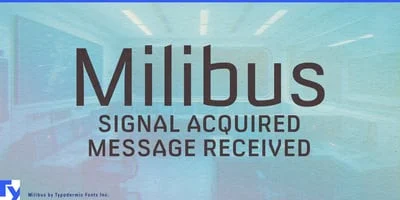
Milibus Font
Milibus Font is perfect for transportation branding, urban planning presentations, public transit systems, logistics companies, travel agencies, navigation interfaces, mobility services, infrastructure projects, and modern transportation communications. This dynamic typeface brings efficient movement and urban sophistication to projects requiring clear wayfinding typography and contemporary transit aesthetics.
What makes Milibus Font exciting is its kinetic energy that captures the constant motion of modern urban transportation and celebrates the efficiency of well-designed mobility systems with remarkable clarity and directional purpose. The font features streamlined letterforms with forward momentum and clear geometric structure that reflects the precision of transportation engineering and urban planning excellence. Its progressive character and efficient personality make it irresistible for transportation authorities seeking typography that communicates reliability while guiding travelers through complex urban environments with confidence and clarity.
The Milibus Font family includes transit weights and mobility styles: Light, Regular, Medium, Semibold, Bold, and condensed variations with directional alternates and wayfinding symbols. Each weight maintains the font's efficient character while offering designers complete flexibility for transportation branding and urban design applications requiring clear navigation and systematic visual communication.
Whether you're designing for transit authorities or mobility services, Milibus Font provides designers with a movement-focused, transportation-optimized typeface solution. The font's kinetic aesthetics and urban styling make it ideal for public transportation systems, logistics companies, urban planning firms, and mobility startups. Its reliable presence ensures your message communicates efficiency and direction while maintaining outstanding wayfinding readability. The comprehensive character set includes transportation symbols and directional indicators, making it perfect for creating clear headlines and brand identities that celebrate urban mobility and establish trustworthy connections with travelers seeking efficient transportation solutions and reliable urban navigation systems.